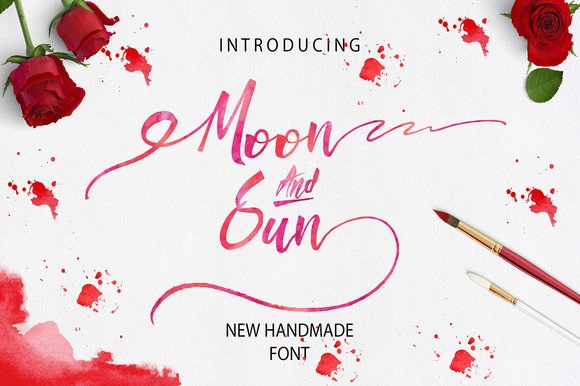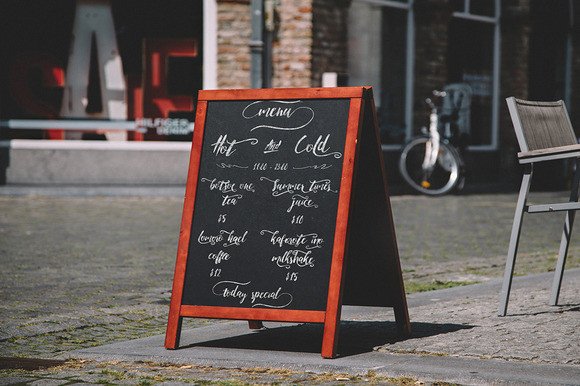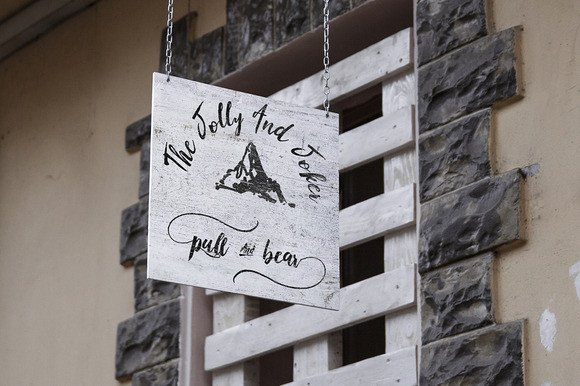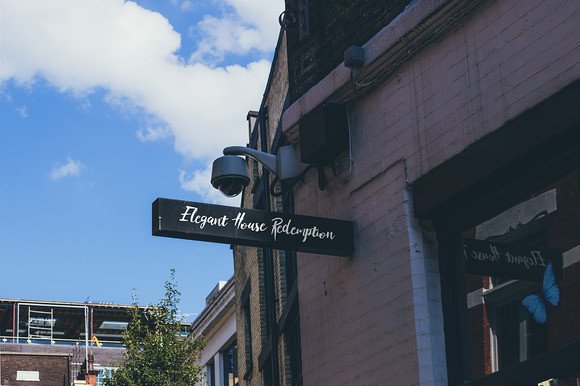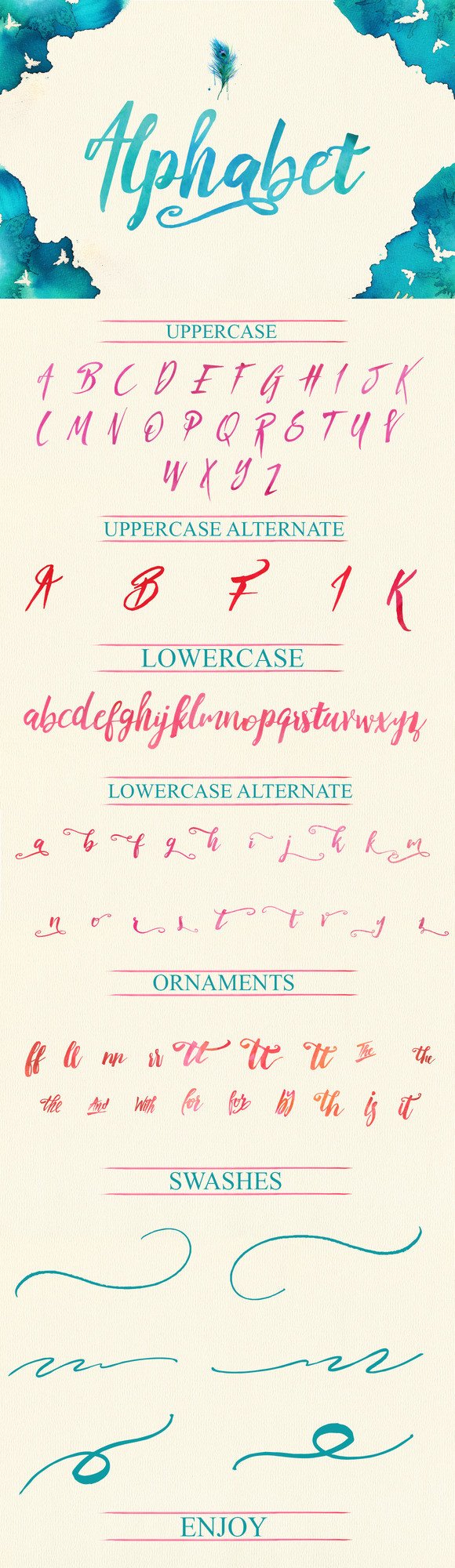
Moon & Sun Font
About Moon & Sun Font
Moon & Sun is a beautiful new handmade font. Perfect for designing invitations, greeting cards, branding materials, business cards, quotes, posters, t-shirts, and much more!